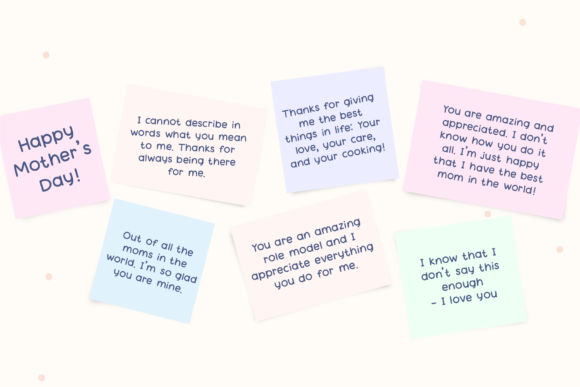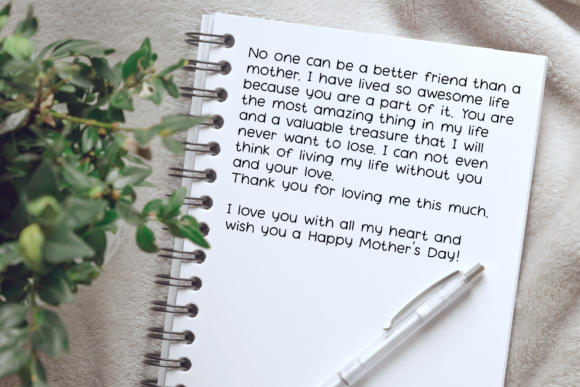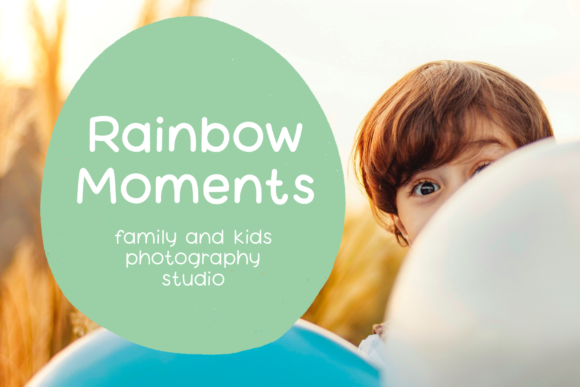
Introduction to Little Note Font
Have you ever found yourself scribbling down ideas in a journal, only to realize that the messy handwriting is actually a perfect reflection of your creative process? For designers, those messy scribbles can be the starting point for something truly special. The Little Note Font is a beautiful representation of that creative energy, and it’s a high-quality design resource that can elevate any project.
This cute handwritten font is a treasure trove for designers looking to add a personal touch to their work. With a transparent background and a free download option, it’s the perfect addition to any creative project. Whether you’re working on a blog post, logo, or digital planner, the Little Note Font is sure to bring a touch of warmth and personality to your design.
For designers, the Little Note Font is a valuable resource that can help them stand out in a crowded market. With its versatility and charm, it’s the perfect tool for adding a creative twist to any project. So why settle for a generic font when you can add a little note of personality to your design?
Key Features of Little Note Font
- Includes a range of glyphs and characters for creative expression
- Designed for use at high resolutions, ensuring crisp and clear display
- Perfect for use in digital design, including web design, graphic design, and more
Honest Review: Little Note Font
I recently came across the Little Note Font, and I must say it’s a great addition to any designer’s toolkit. As a design resource, it’s a high-quality font that can elevate any creative project.
What works well is the font’s playful and elegant style, making it perfect for a variety of design applications, such as invitations, greeting cards, and more. The transparent background also makes it easy to customize and blend with different backgrounds.
Here are some of the key features that caught my attention:
- Playful and elegant style that’s versatile and easy to use
One potential limitation is the limited character set, which may not be suitable for longer texts or more complex designs.
Overall, I’m impressed with the Little Note Font. It’s a great design resource that can add a personal touch to any creative project. With its high-quality design and transparent background, it’s definitely worth checking out, especially for those looking for a free download.
The Little Note Font is a high-quality design resource perfect for any creative project. With its transparent background and elegant design, it’s ideal for adding a touch of sophistication to your work.
The Little Note Font is perfect for:
1. Wedding invitations and stationery.
2. Branding and marketing materials.
3. Creative projects and artistic expressions.